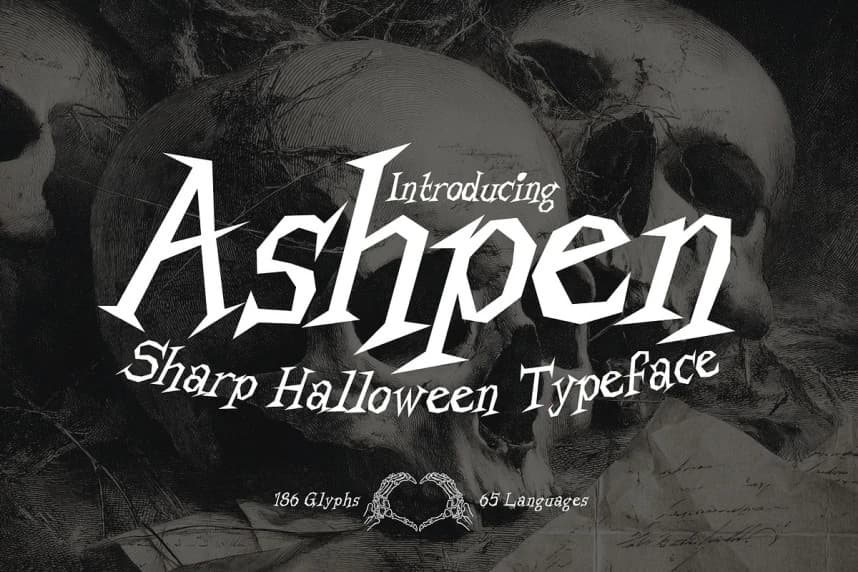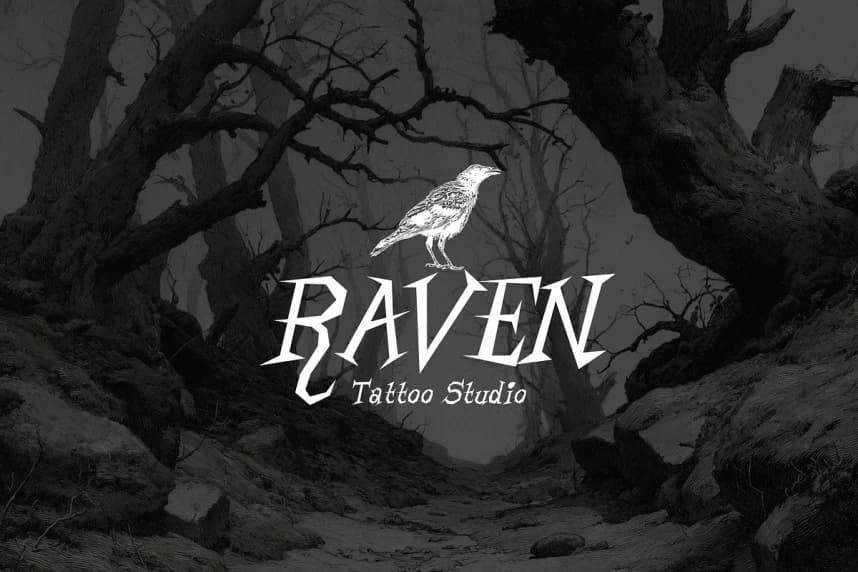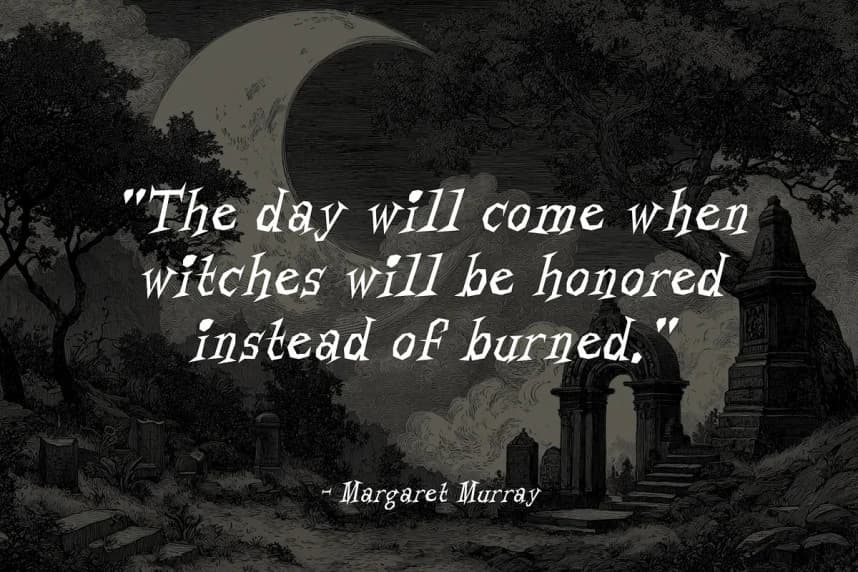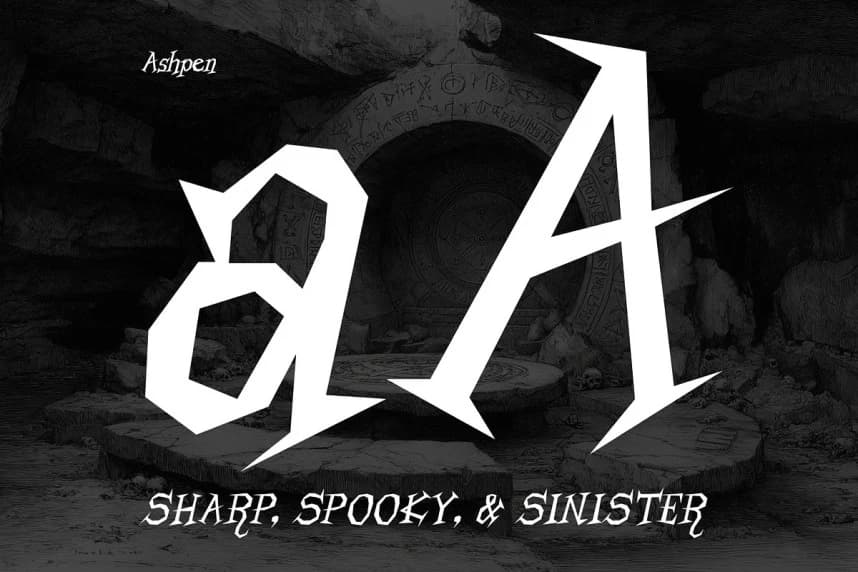
Ashpen Font
Ashpen Font is a sharp, sleek, and sinister typeface forged in the shadows of your darkest imagination. Crafted with precision and edge, this chilling font was born for fearsome creativity. Its razor-thin strokes and jagged edges evoke a haunting presence